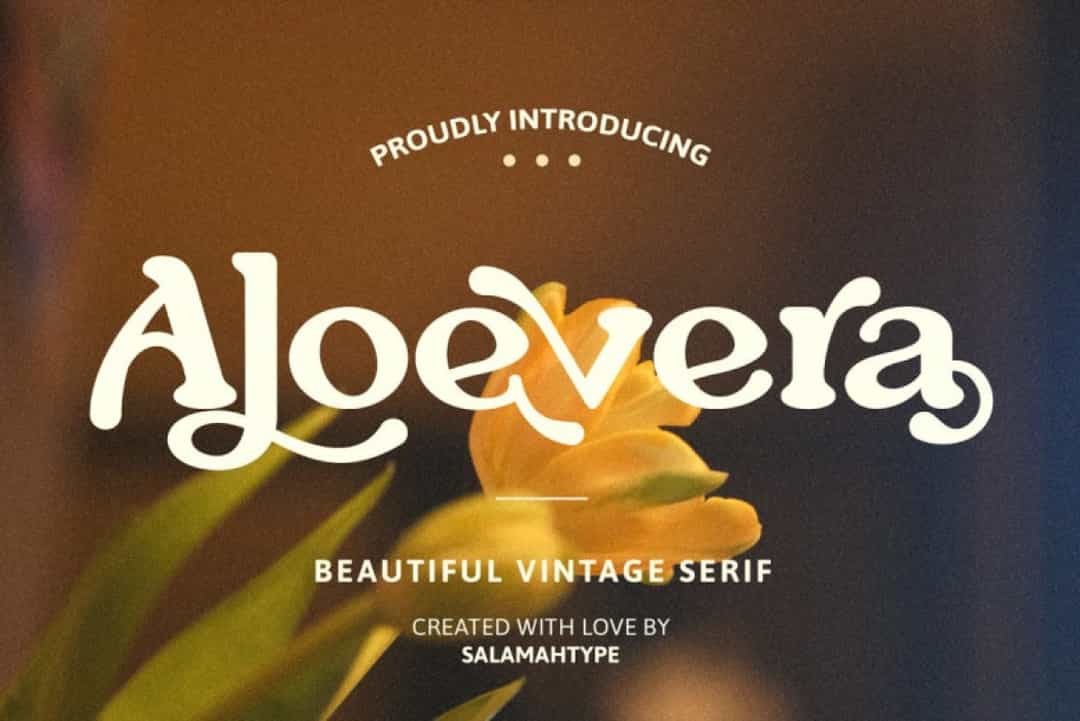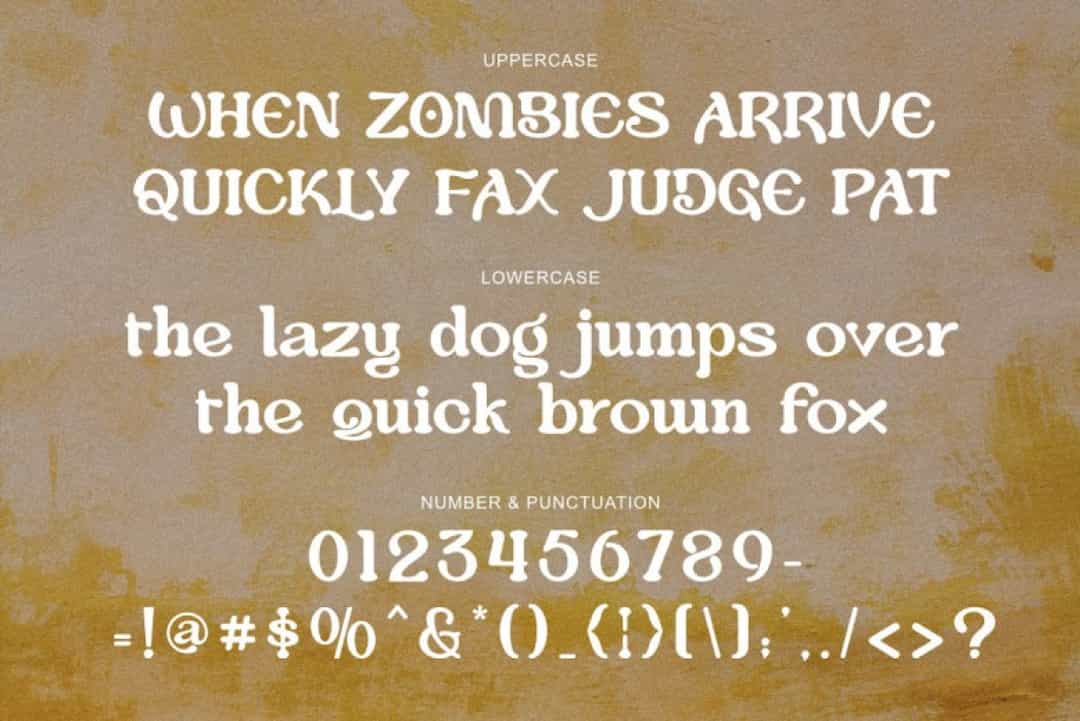
Discover Aloevera Font, part of the Serif Retro Vintage collection—a versatile and unique font perfect for adding a personal touch to your projects. Download it for free and enjoy crafting designs with style, from invitations to social media posts. This font is available exclusively for personal use, giving you the freedom to create without limits. Unlock your creativity with Aloevera Font today!
Aloe Vera is an elegant retro, groovy, and contemporary serif font, designed with alternative ligatures for easy use in branding applications like wedding invitations, logos magazine logos logos posters merchandise etc. PUA encoded for optimal use so all characters and strokes are accessible quickly and with ease.